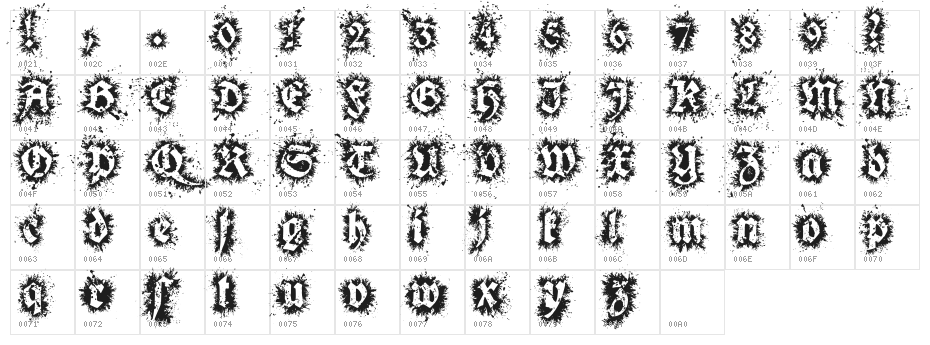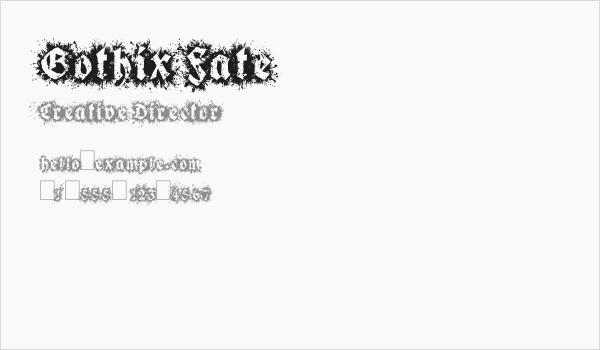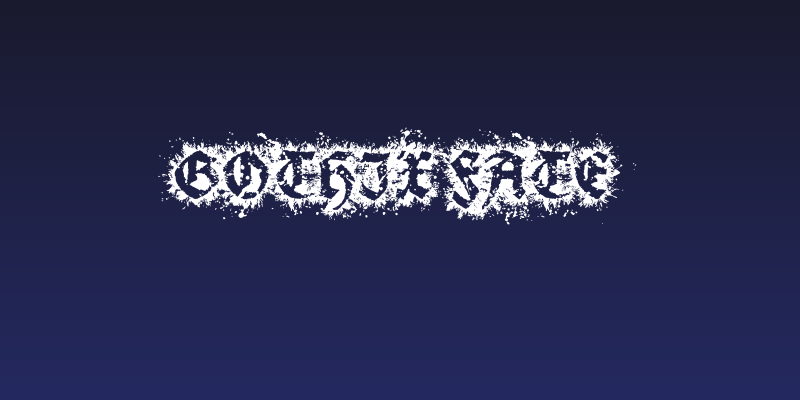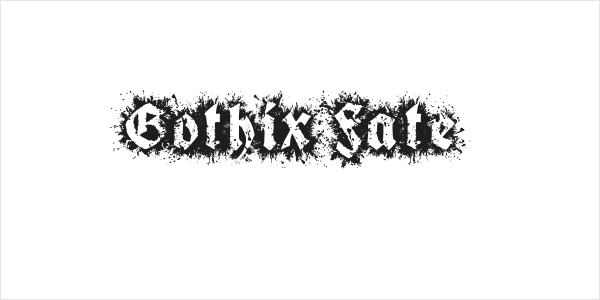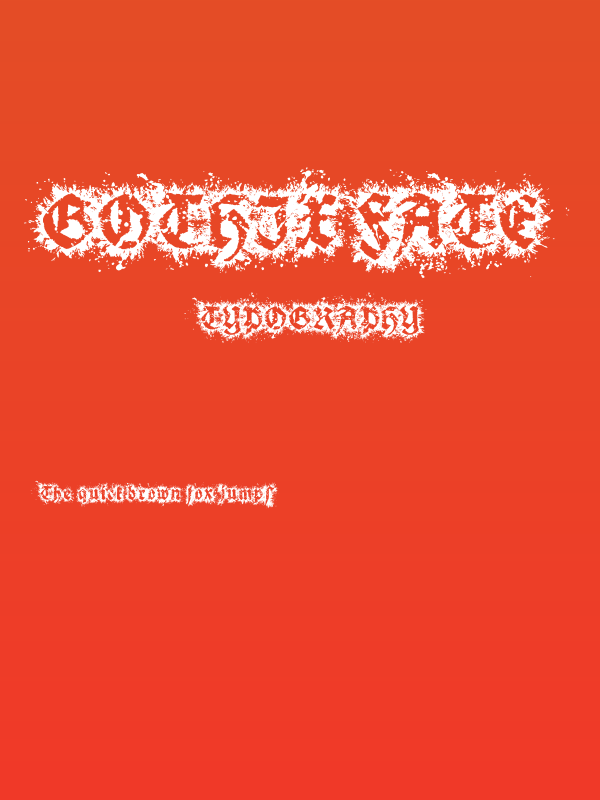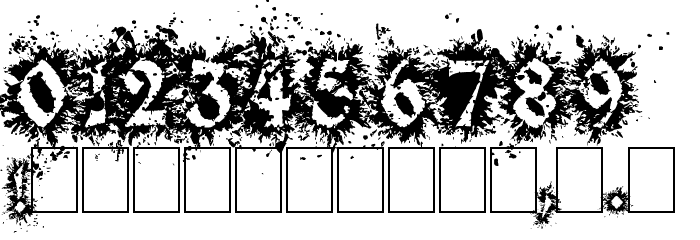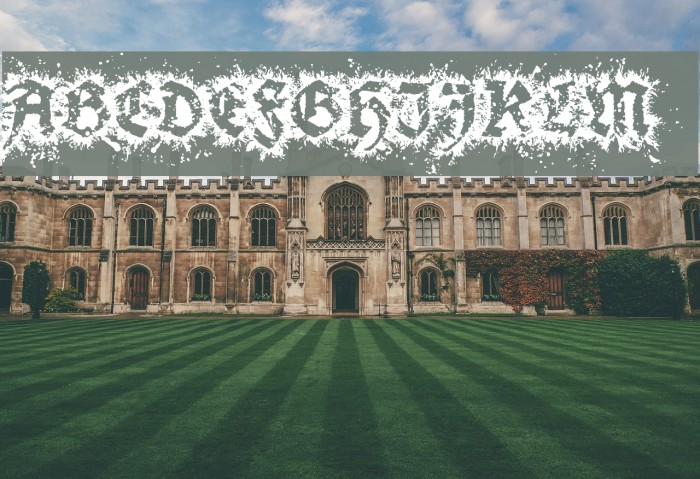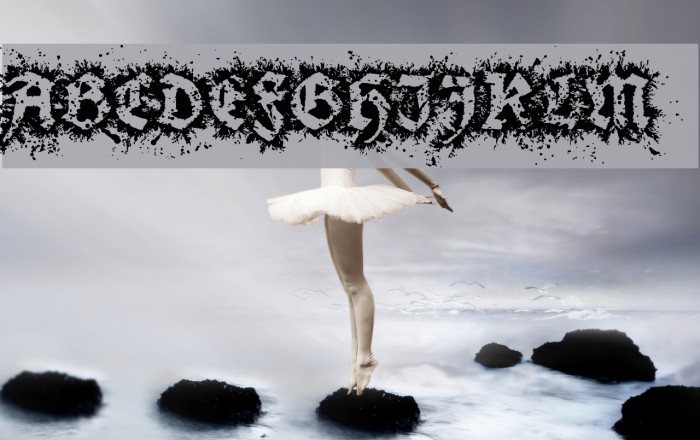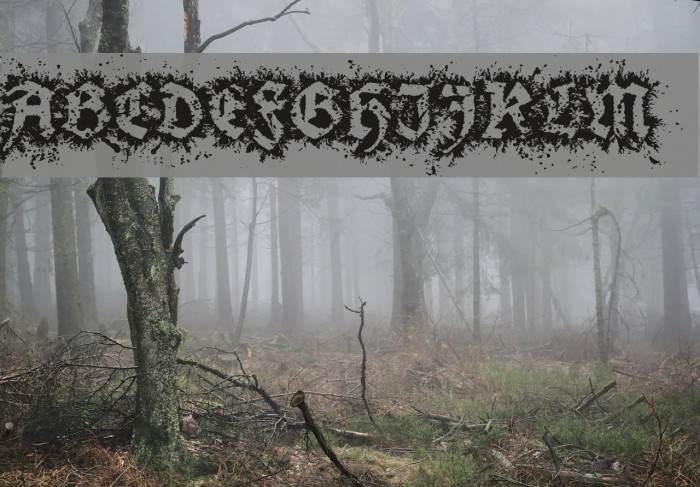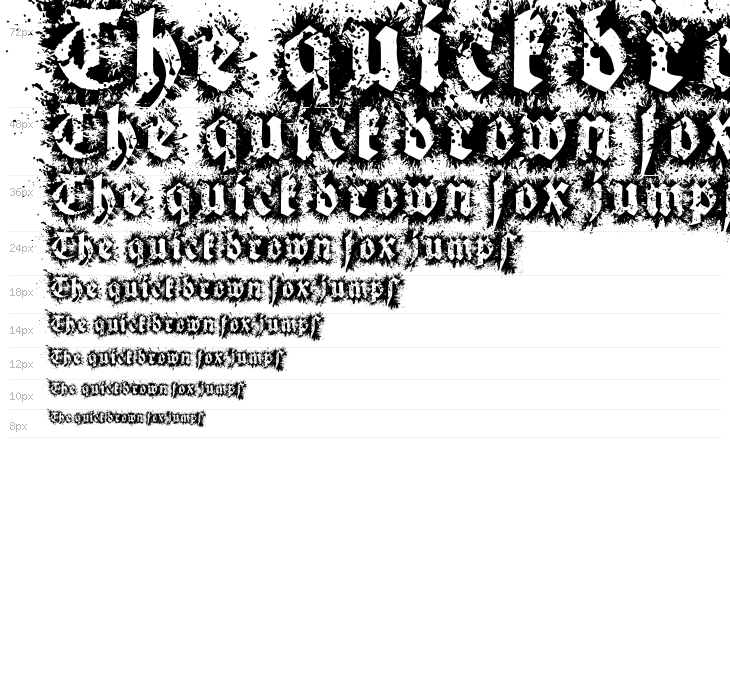
Gothix Fate Font
Gothix Fate Description
This font features a bold and dramatic style, reminiscent of traditional Gothic script with a modern twist. The characters are heavily stylized with sharp, angular lines and intricate detailing, giving them a textured, almost distressed appearance. The uppercase and lowercase letters maintain a consistent design, with a strong emphasis on vertical strokes and pointed serifs. The numbers and special characters follow the same aesthetic, ensuring a cohesive look across all elements. This font is ideal for creating impactful designs that require a touch of historical elegance combined with a contemporary edge.
| Proposed Projects | Ideal for album covers, posters, branding for edgy or alternative products, and any design needing a dramatic, historical touch. |